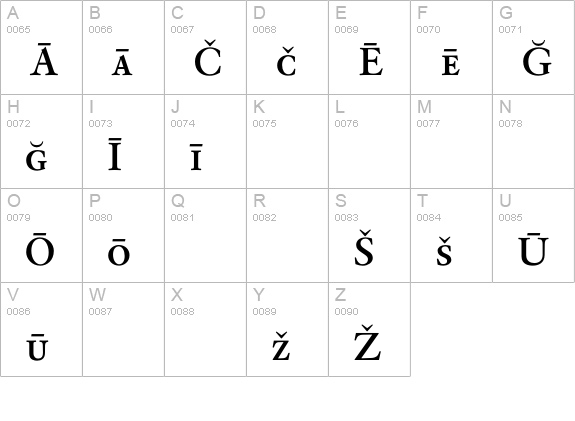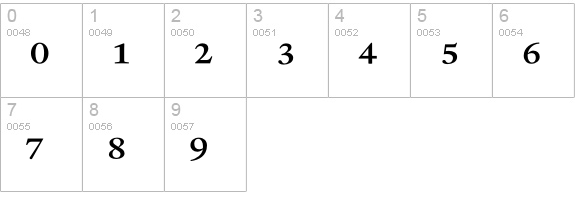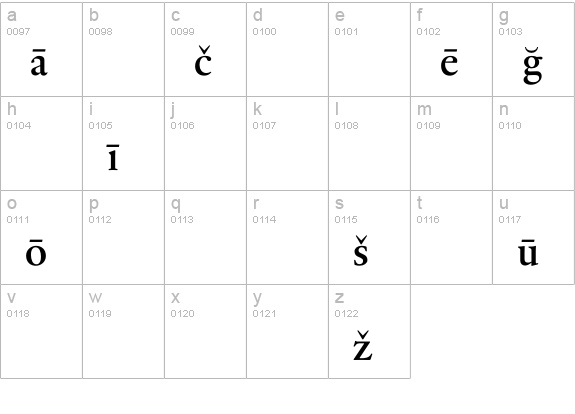
RenardNo1-RomanPi is a stunning and versatile font that exudes elegance and sophistication. With its sleek and modern design, it is the perfect choice for any project that requires a touch of class. The clean and precise lines of this font make it incredibly legible, ensuring that your message will be conveyed with clarity and impact. RenardNo1-RomanPi is not just visually appealing, but it also offers a wide range of characters and glyphs, making it suitable for various languages and typographic needs. Whether you are designing a logo, creating a website, or crafting a beautiful invitation, this font will elevate your work to new heights. One of the greatest advantages of RenardNo1-RomanPi is that it is free. Yes, you read that right! This amazing font is freely available to download at FontsMarket.com. You can easily access this font and start using it in your projects without any cost. This makes it an ideal choice for both professional designers and individuals looking to add a touch of sophistication to their personal creations. So why wait? Download RenardNo1-RomanPi today and discover the endless possibilities it holds for your designs. With its timeless elegance and impressive versatility, this font will undoubtedly become a valuable asset in your typographic toolkit. Embrace the beauty of RenardNo1-RomanPi and watch as your designs come to life with finesse and style.